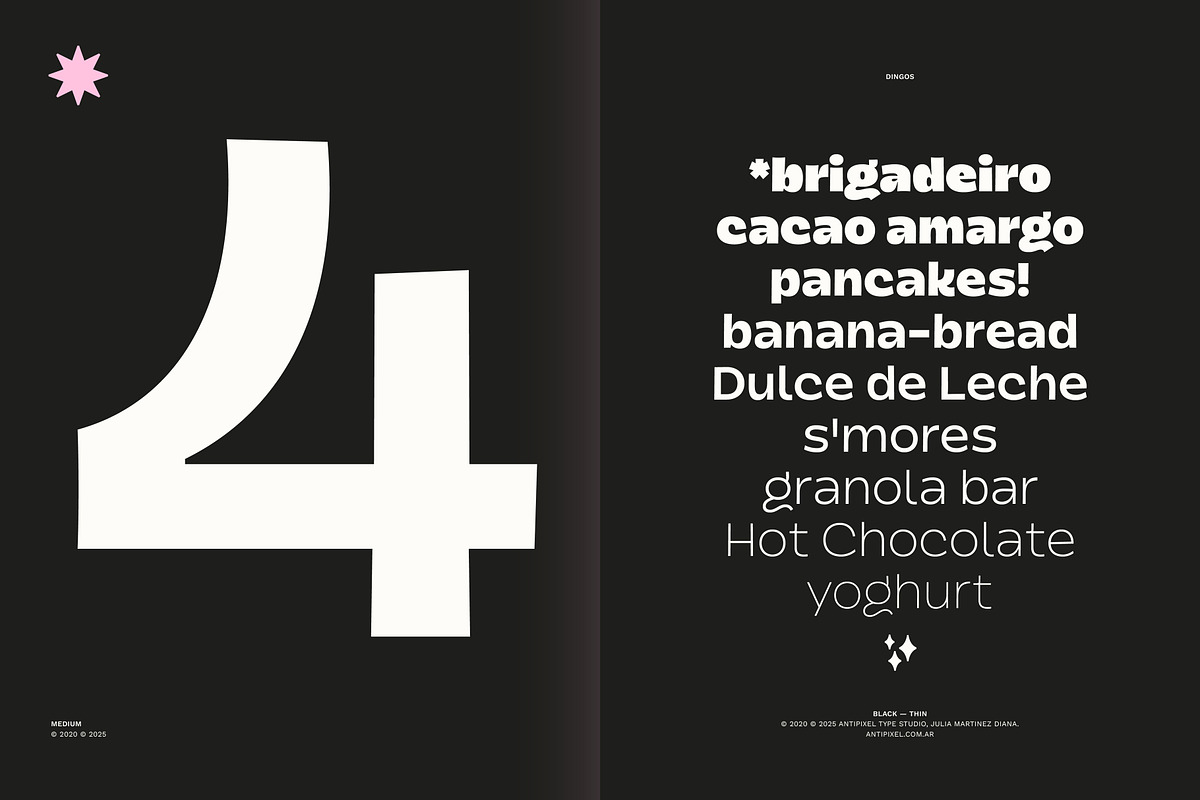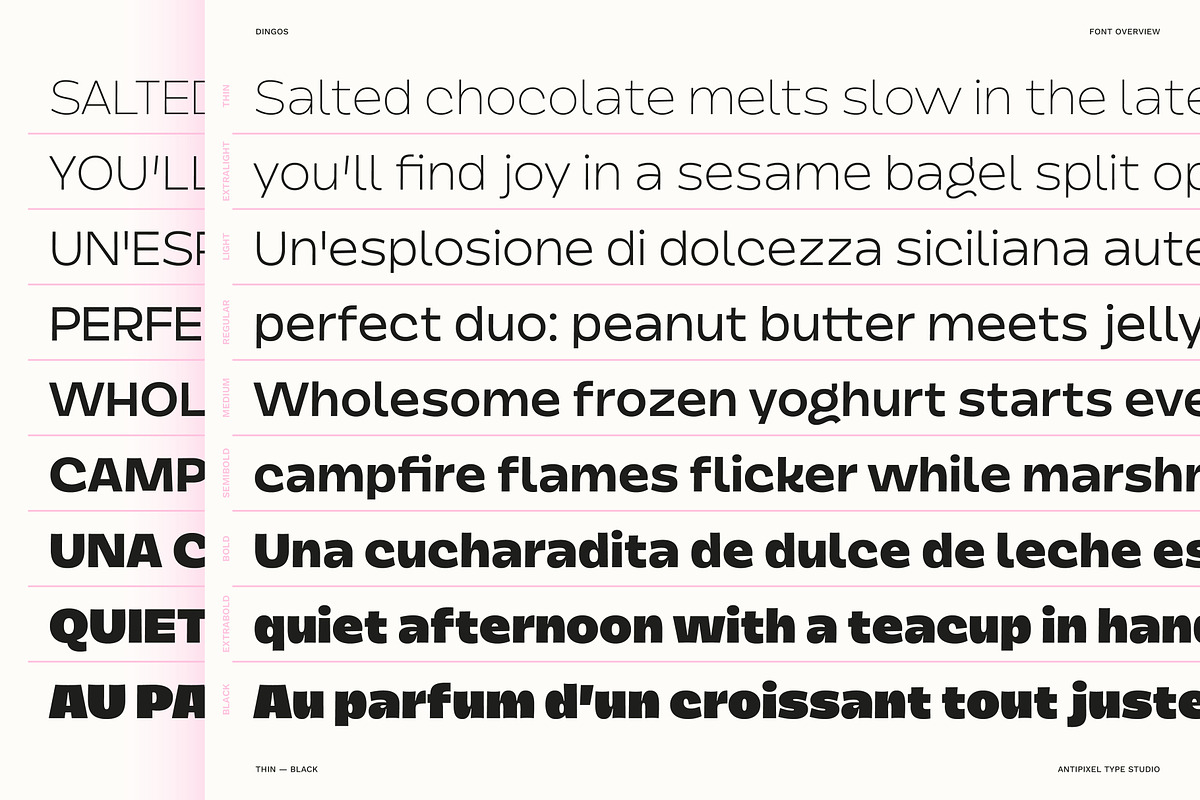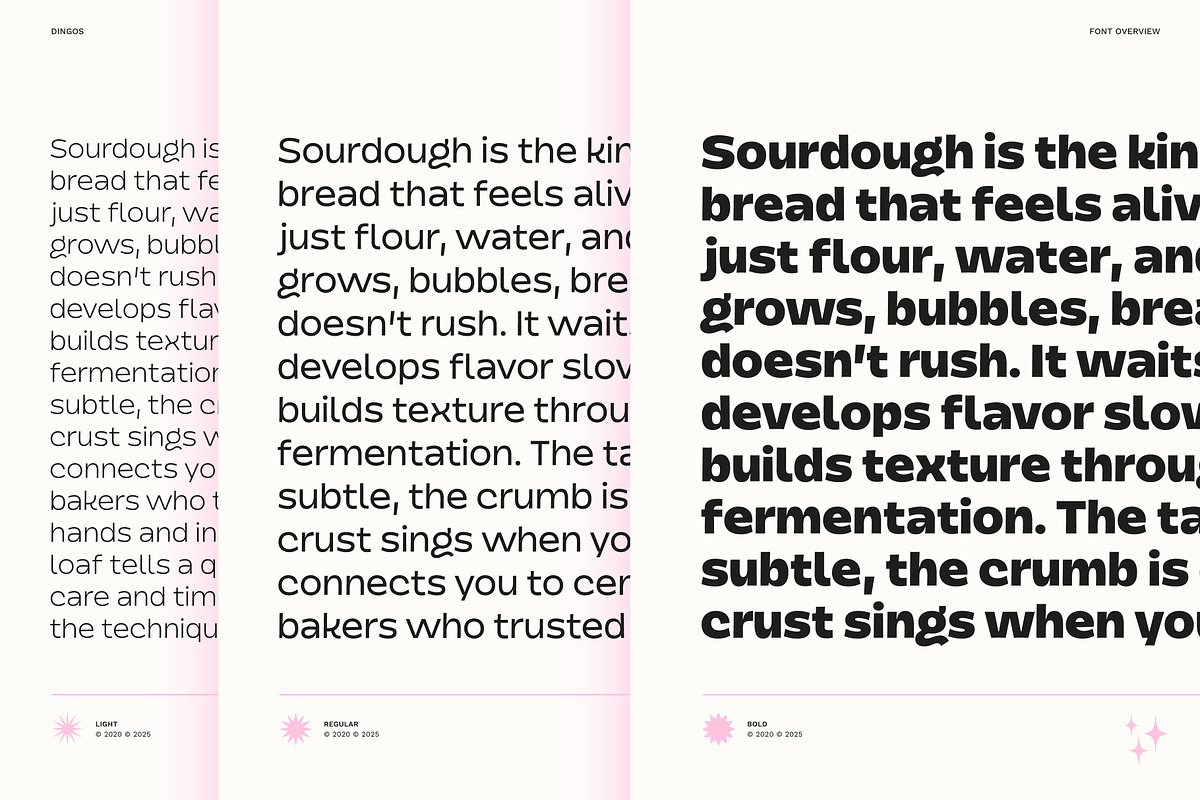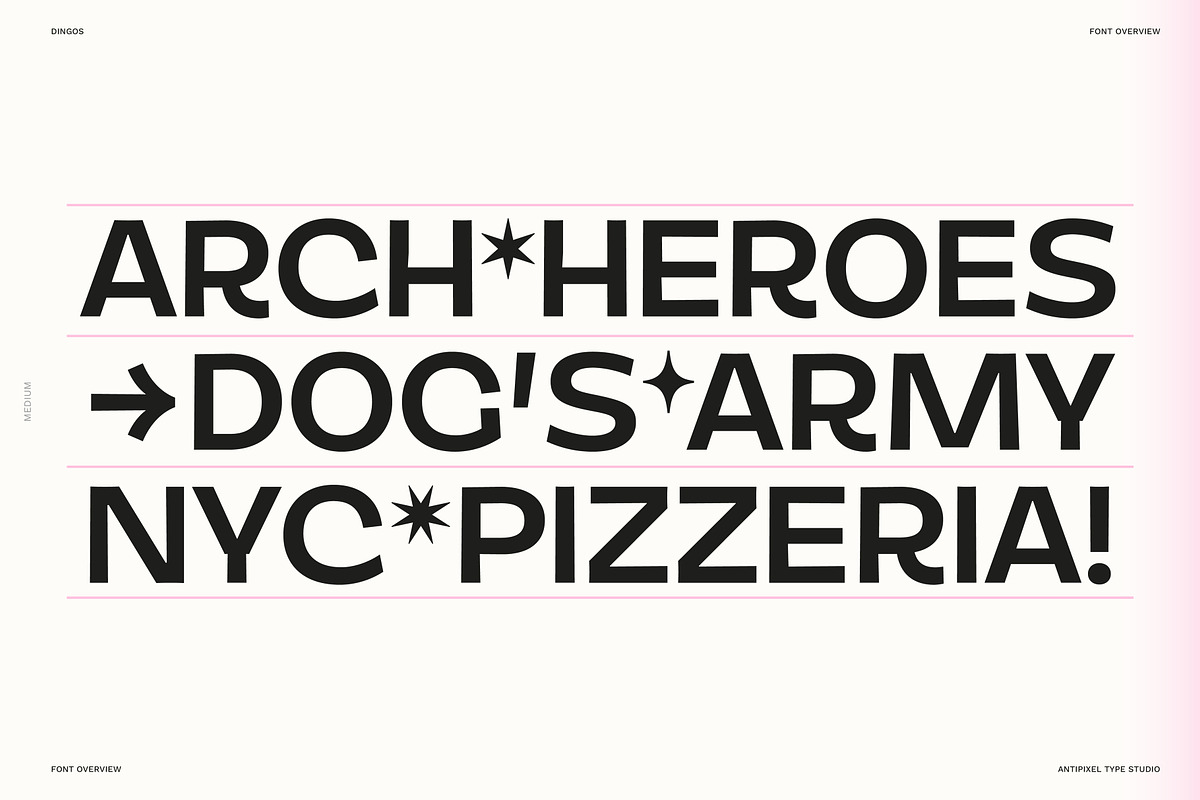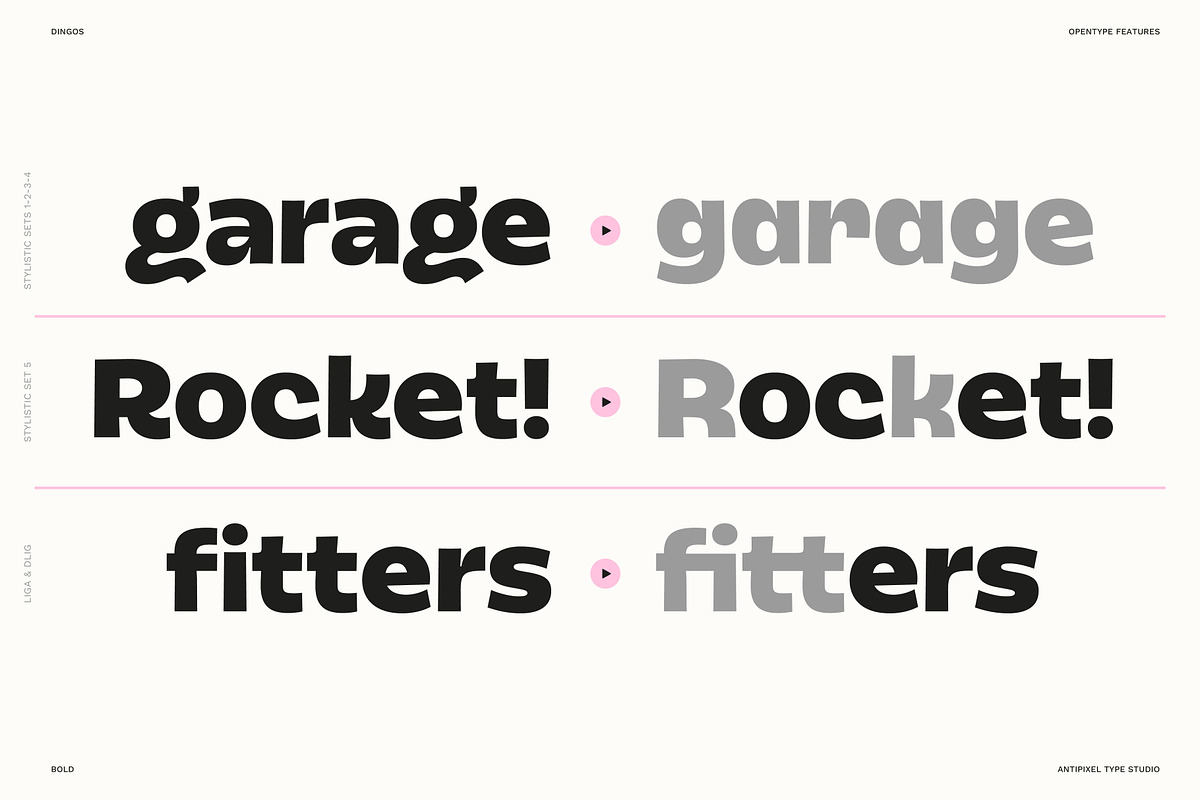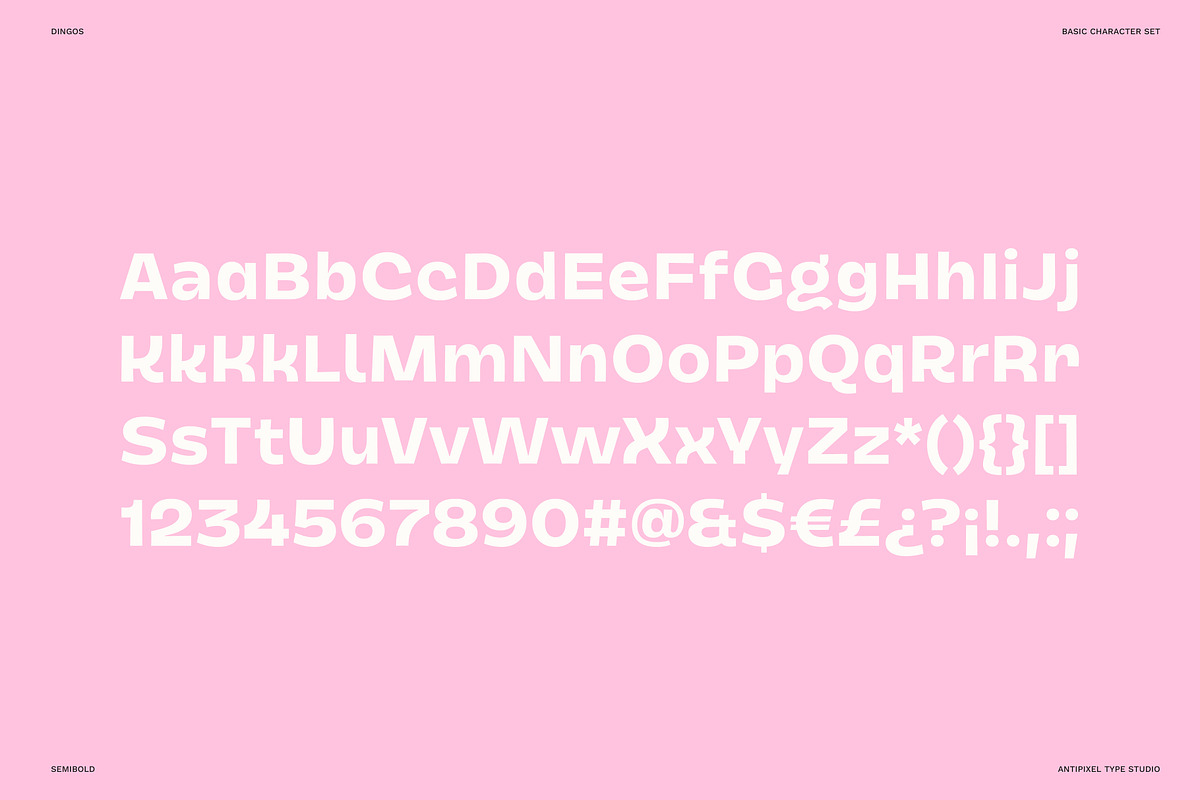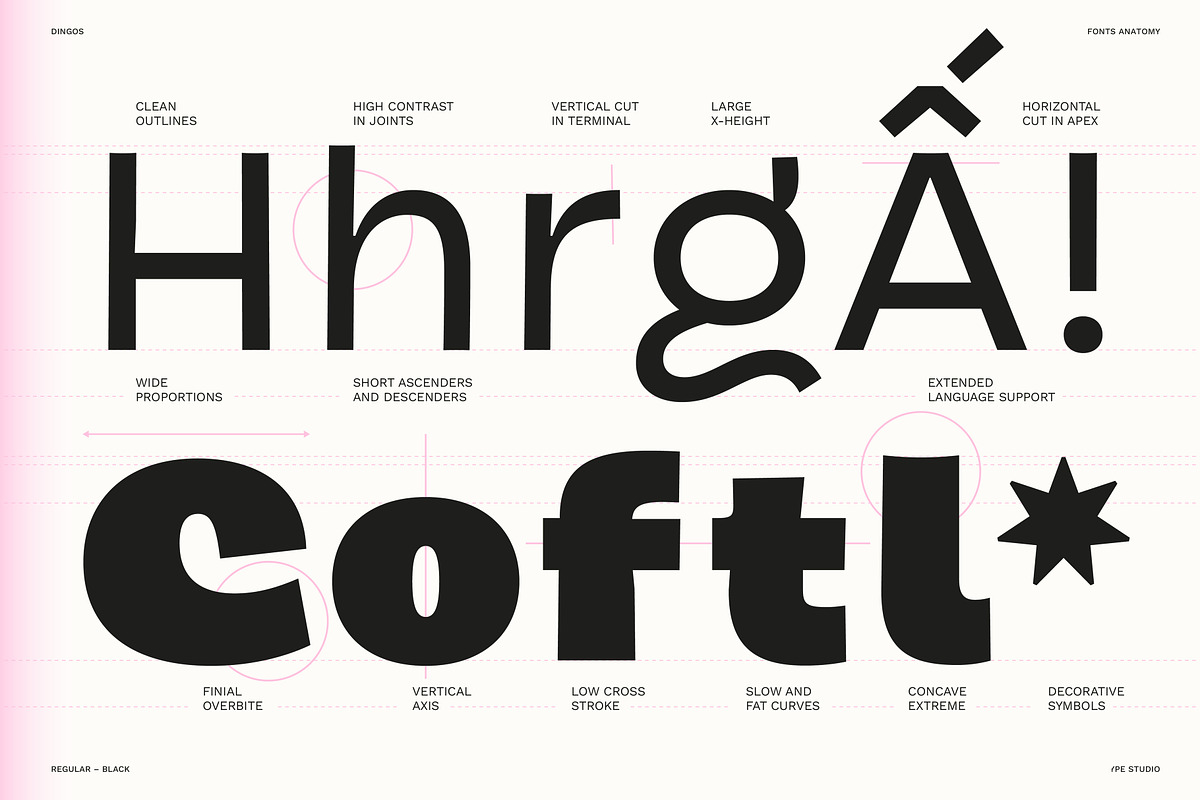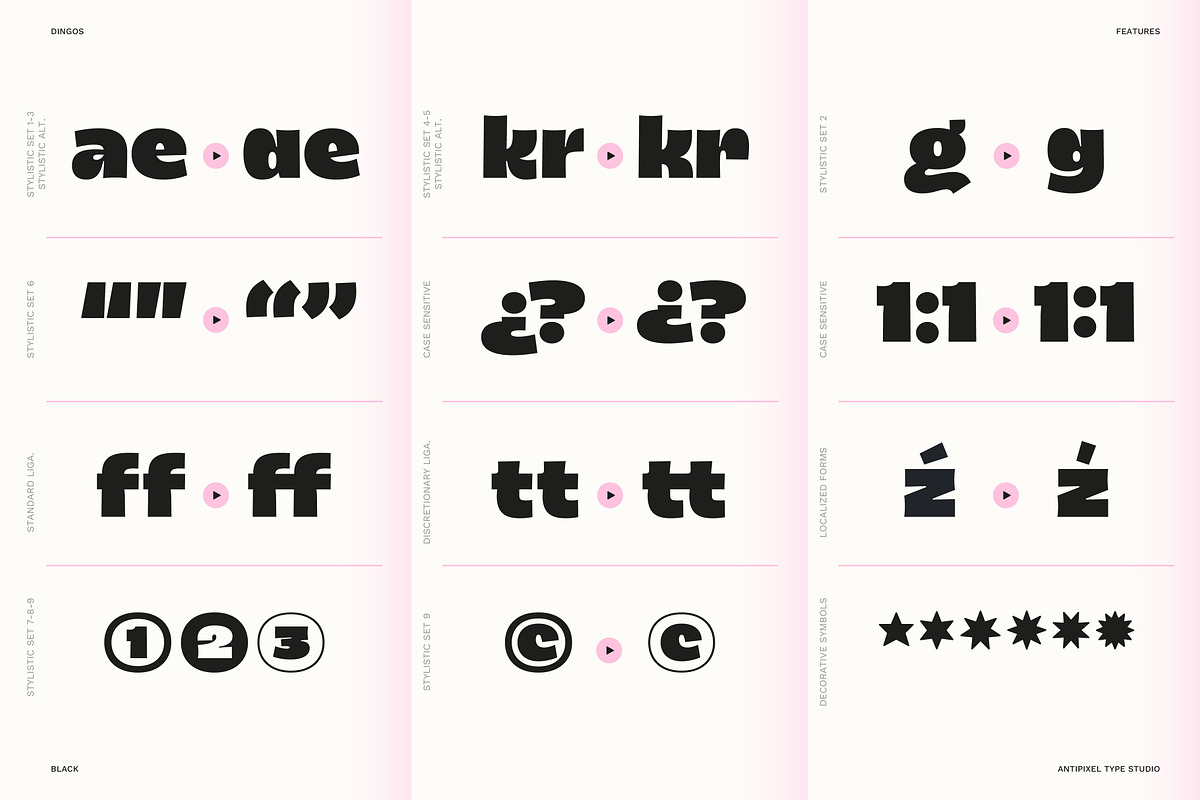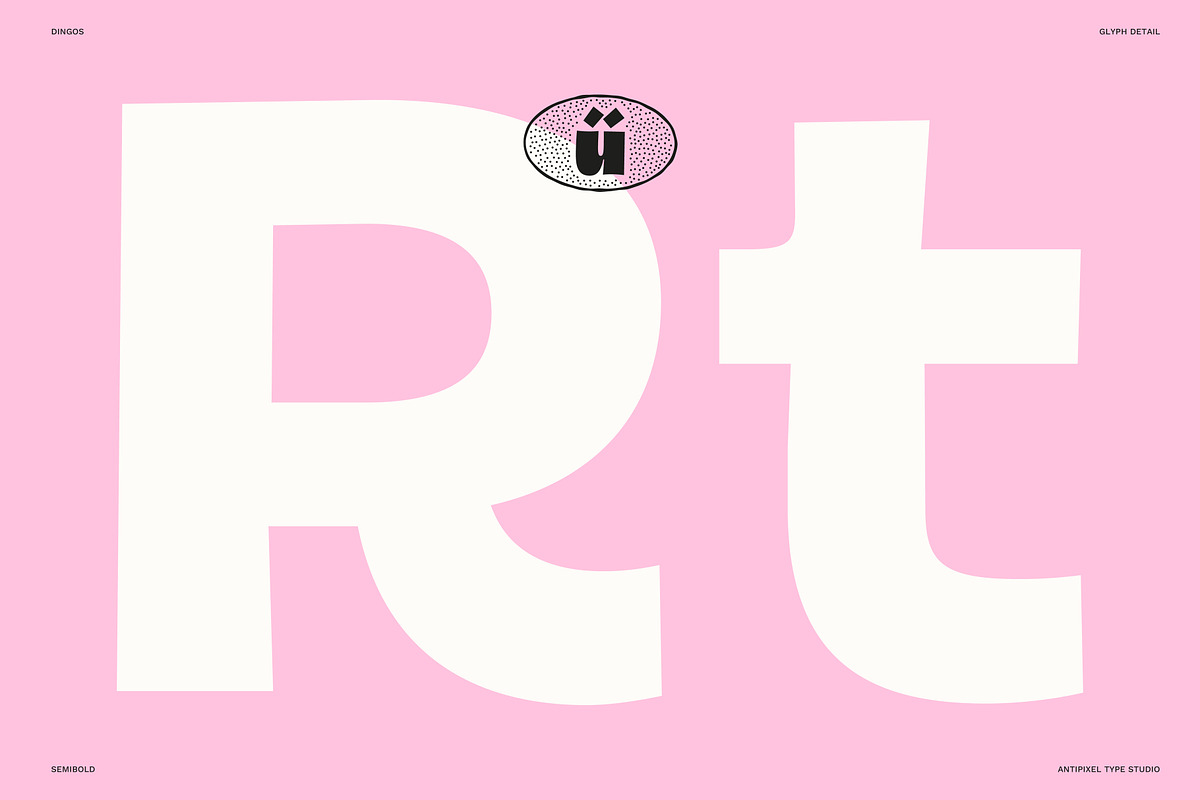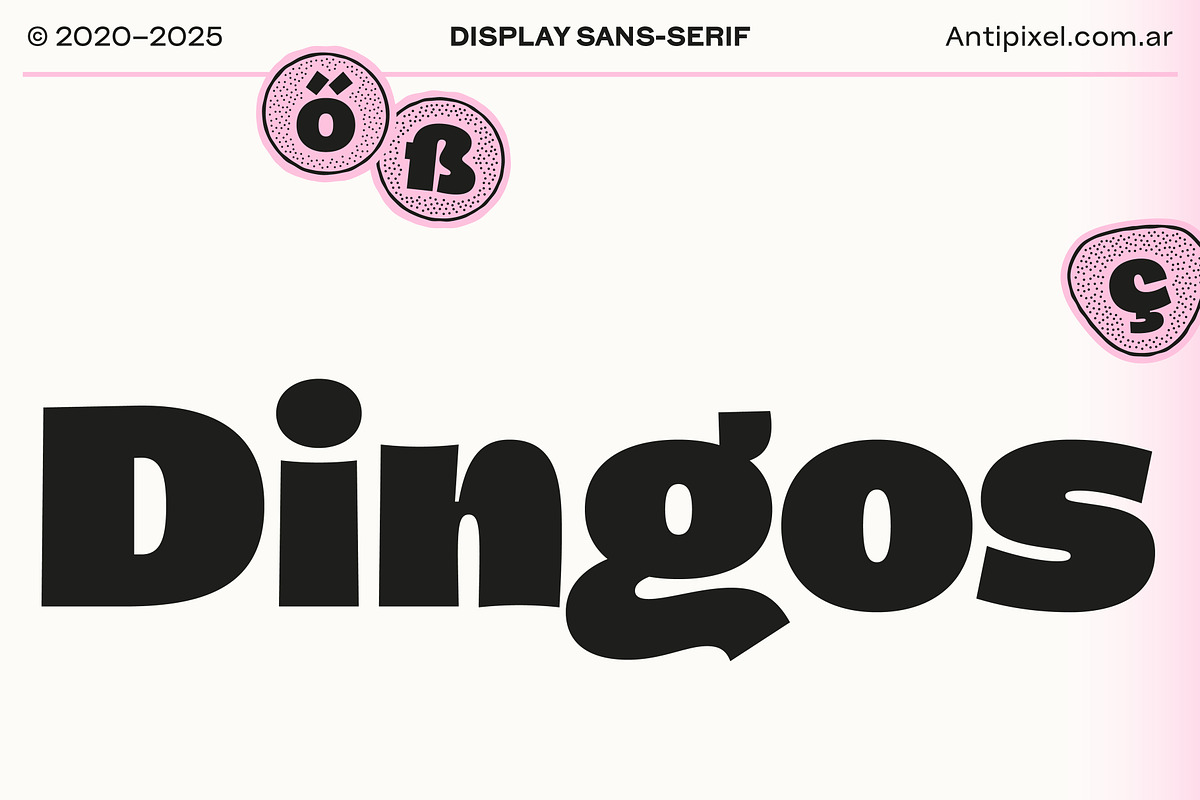
Dingos | Compact Chunky Display Sans
Introducing Dingos, an energetic sans-serif typeface that blends sharp details with soft curves, designed to stand out and perform. Dingos consists of 9 weights, ranging from Thin to its signature Black, offering versatility and emphasis in any design: Thin, ExtraLight, Light, Regular, Medium, SemiBold, Bold, ExtraBold, and Black.
Dingos combines structural clarity with distinctive qualities. Its angular ink traps and high-contrast joints add sharpness and tension to an otherwise soft, rounded rhythm, keeping a minimalist font design. A large x-height, wide proportions, short ascenders, and short descenders create a compact yet spacious feel. The vertical axis, and horizontal apex and vertex, give the typeface a steady, grounded presence, while the low cross-strokes on t and f enhance its quirky, expressive tone. Slow fat curves and concave stem extremes add a sculptural quality, giving Dingos a unique personality. Decorative symbols complete the system, providing a playful design ideal for headlines, branding, and logotype design.
This redesign brings out its modern personality and allows Dingos to adapt seamlessly across a wide range of design contexts. As a display font it is ideal for headlines, big and medium settings, while remaining legible at smaller sizes. The result is a powerful yet approachable typeface that retains its original attitude while offering improved legibility, clarity, and performance. Perfect for screen and web design, as well as printed posters or book covers.
Designed for global use, Dingos supports 216 languages with extensive glyph coverage, a multilingual font. OpenType features include Stylistic Alternates, Stylistic Sets, Contextual Alternates, Case Sensitive forms, and more, ensuring expressive versatility across any project.
Thin, ExtraLight, Light, Regular, Medium, SemiBold, Bold, ExtraBold, Black (uppercase & lowercase)
Numbers, punctuation, ligatures, arrows, decorative symbols, case-sensitive characters, monetary and mathematical symbols, and more!
OpenType: Localized Forms, Contextual Alternates, Stylistic Alternates, Standard Ligatures, Discretionary Ligatures, Stylistic Sets 1 - 9, Subscript, Scientific Inferiors, Superscript, Numerator, Denominator, Fractions.